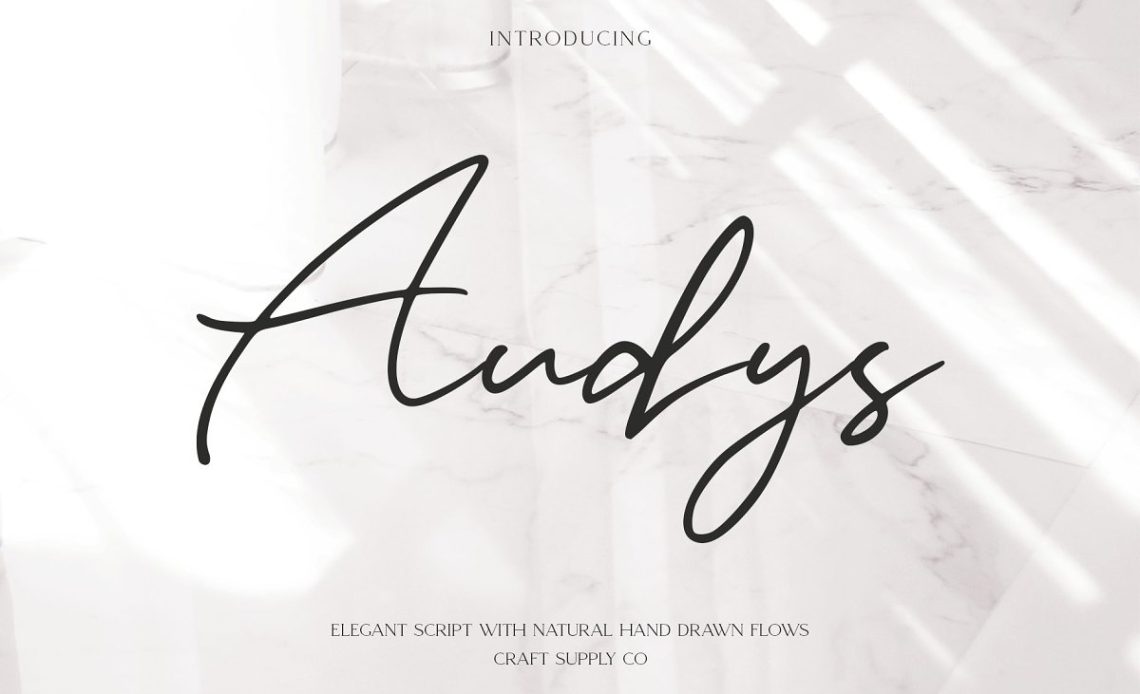
Introducing Audys - Elegant Script Font, a mesmerizing handwritten script font that will elevate your design projects to new heights. Created by the talented Trio Nazzar Saputra, this font is an expression of real handwriting, adding an authentic and personal touch to your work.
Whether you're working on a fashion campaign, managing an e-commerce brand, running a trend blog, or owning a wedding boutique, Audys - Elegant Script Font is the perfect choice. It effortlessly exudes an upscale and chic vibe, instantly capturing the attention of your target audience.
But Audys - Elegant Script Font doesn't stop there. It is also incredibly versatile, making it suitable for various design purposes. Use it to create stunning logos that leave a lasting impression. Craft beautiful greeting cards and inspirational quotes that tug at the heartstrings. Design eye-catching posters that stand out from the crowd.
With Audys - Elegant Script Font, the possibilities are endless. Its elegant and modern aesthetic makes it ideal for branding, name cards, blog headers, and even art quotes. Let your creativity run wild and explore the world of typography with this fabulous font.
This font boasts an extensive range of features to enhance your design experience. Enjoy both uppercase and lowercase options for added flexibility. Take advantage of the standard ligatures to create seamless and flowing letter combinations. Numerals and punctuations are also included in the OpenType Standard format, ensuring that your designs are polished and professional.
Audys - Elegant Script Font is not limited by language barriers. It supports a wide range of accents and multilingual characters, allowing you to cater to a global audience. From AÀ�ÂÃÄÅCÇD�EÈÉÊËIÌ�Î�NÑOØÒÓÔÕÖUÙÜÚÛWY�ŸỲŸÆŒßÞ, this font has got you covered.